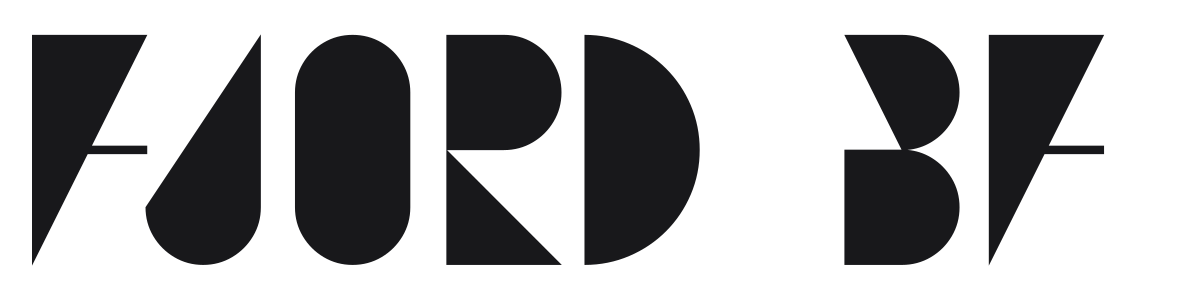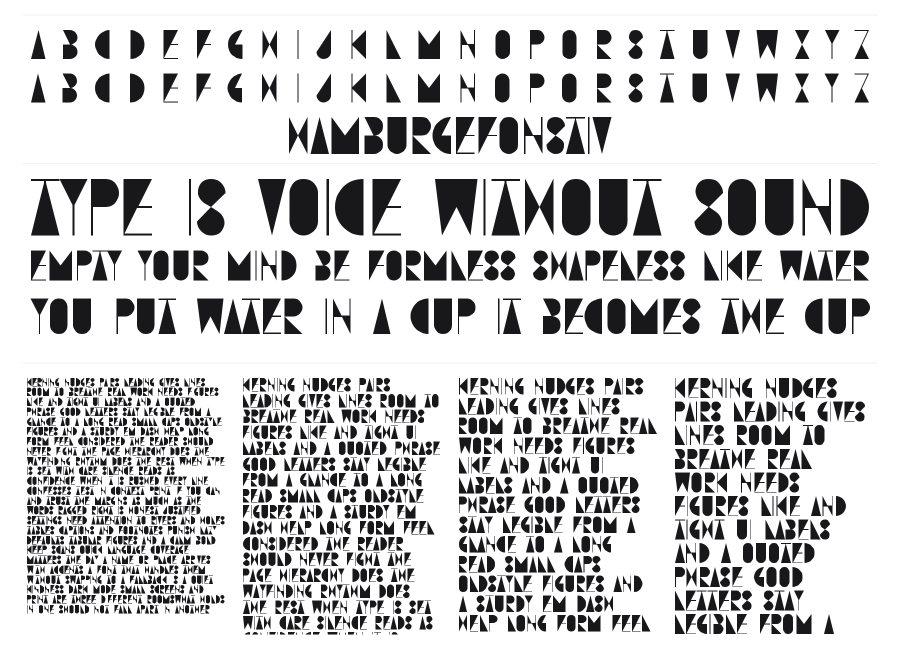
Fjord BF
by Nariswari Creative · Website
Fjord BF is a modular geometric display font assembled from simple cut shapes — semicircles, rectangles, and triangles slotted together on a grid. The heavy, consistent weight and near-total absence of stroke contrast give it a bold, graphic punch rooted in 1970s poster and constructivist design traditions. It works at large sizes where its architectural construction reads as intended.